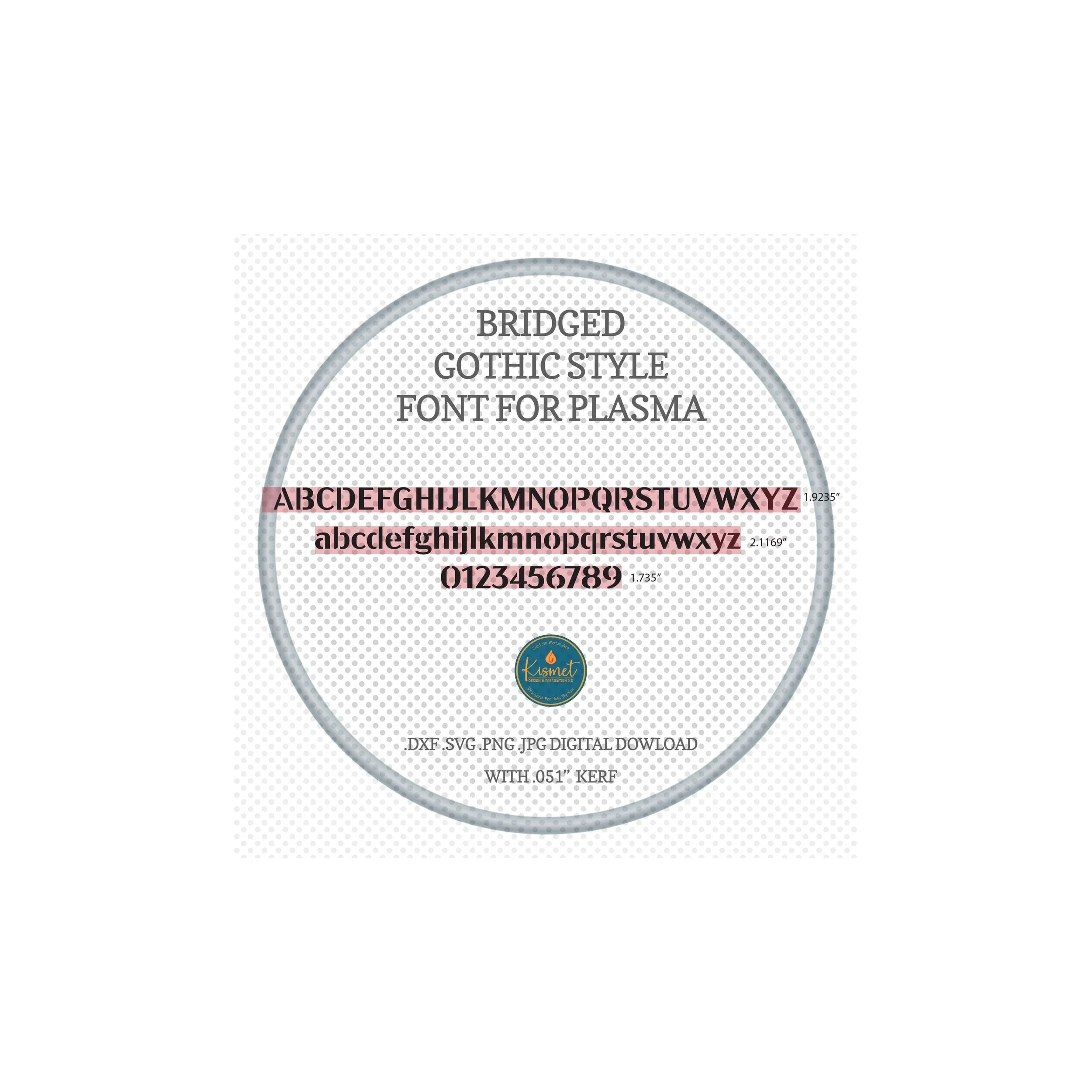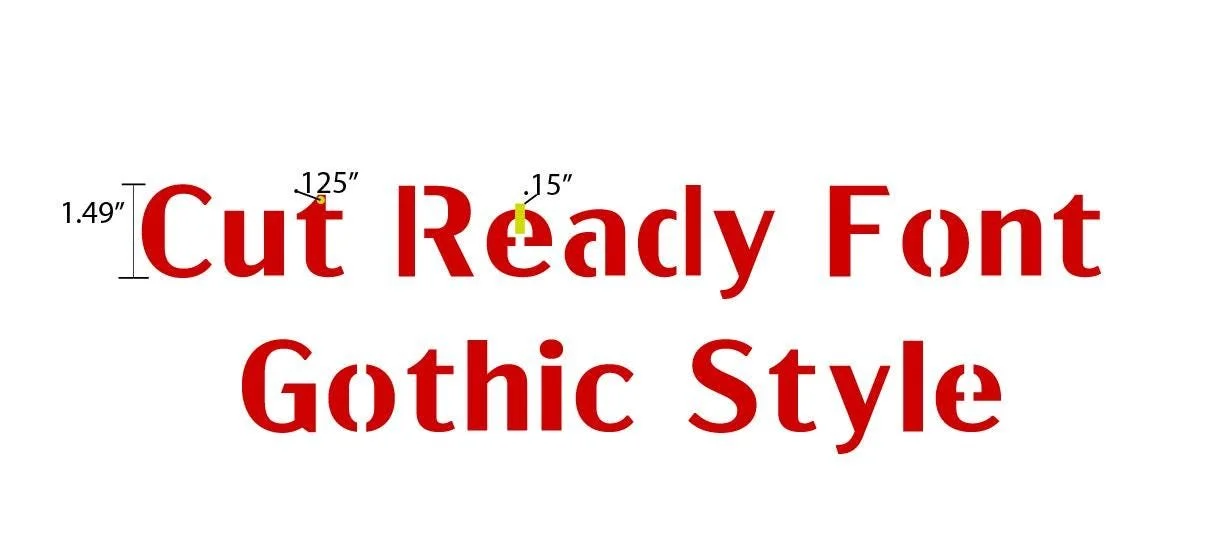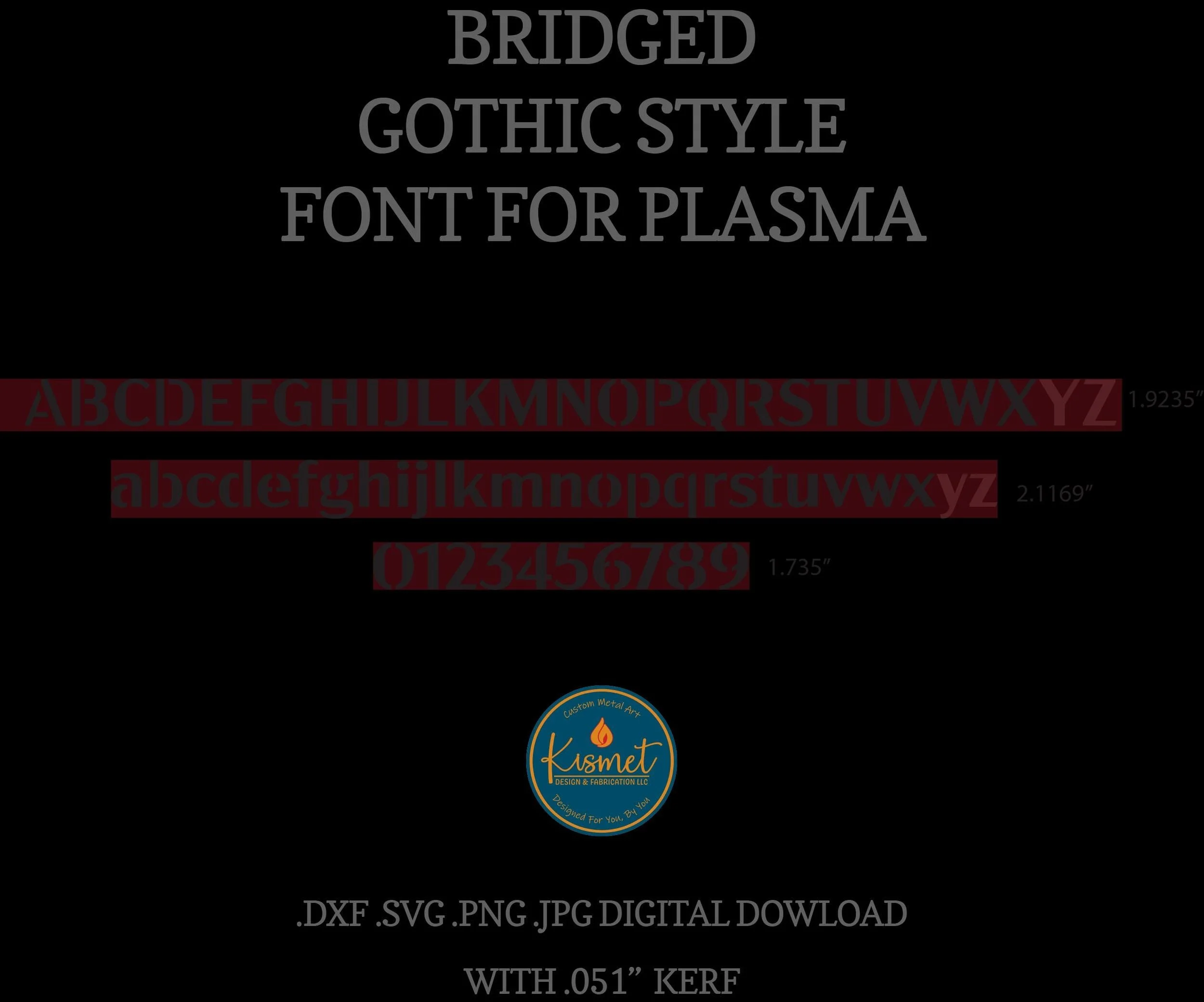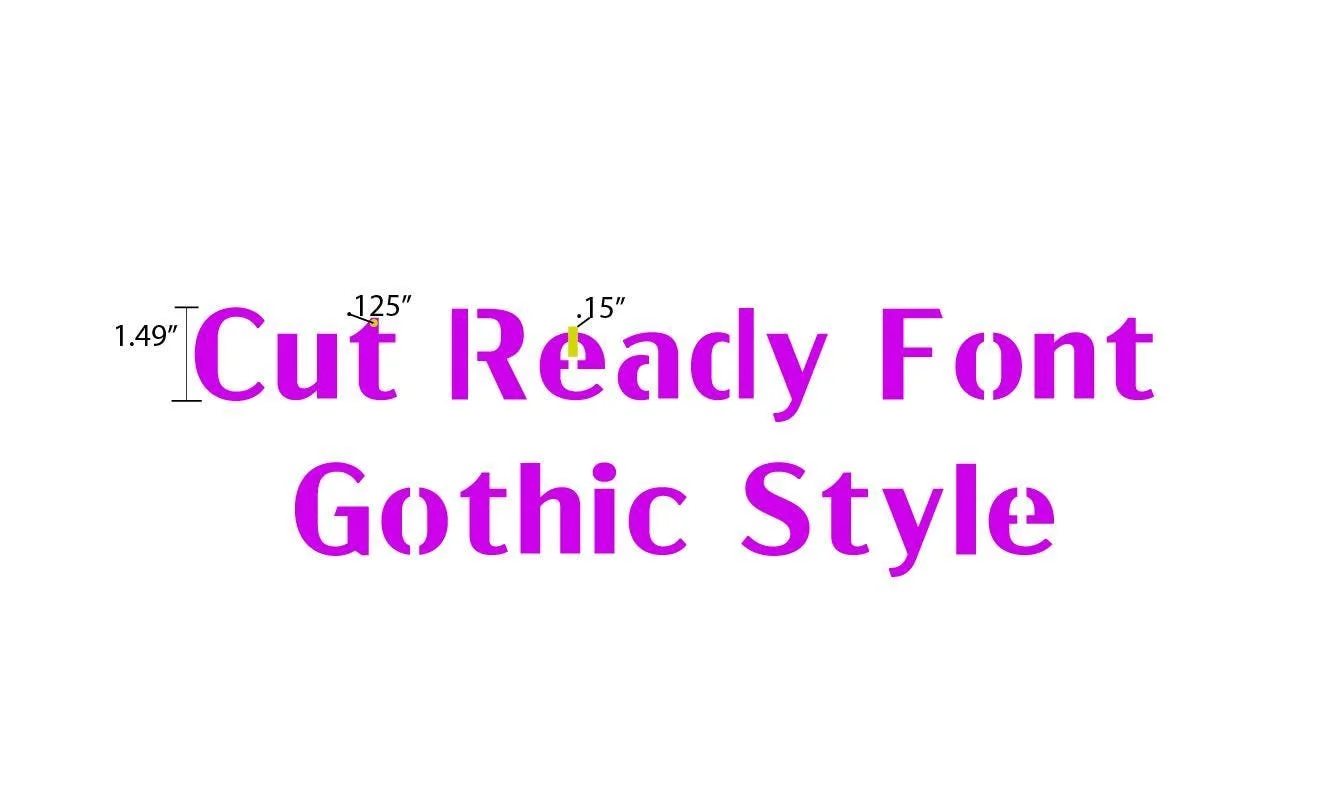
Gothic Font: Bridged Stencil, CNC Plasma DXF File, Laser SVG Cut Files, Cricut, Glowforge
Introducing the latest gothic font for laser cutting, plasma font digital download, stencil font dxf file for cnc plasma, dxf font, cut ready font, bridged font. This font includes clean cutting png svg jpg and dxf cut files for a full collection of files formats to suit your needs. These versatile cursive font svg files for cnc make beautiful files for laser and are also the perfect svg font, stencil font ttf for whatever your cutting needs.
Hand drawn in Adobe Illustrator